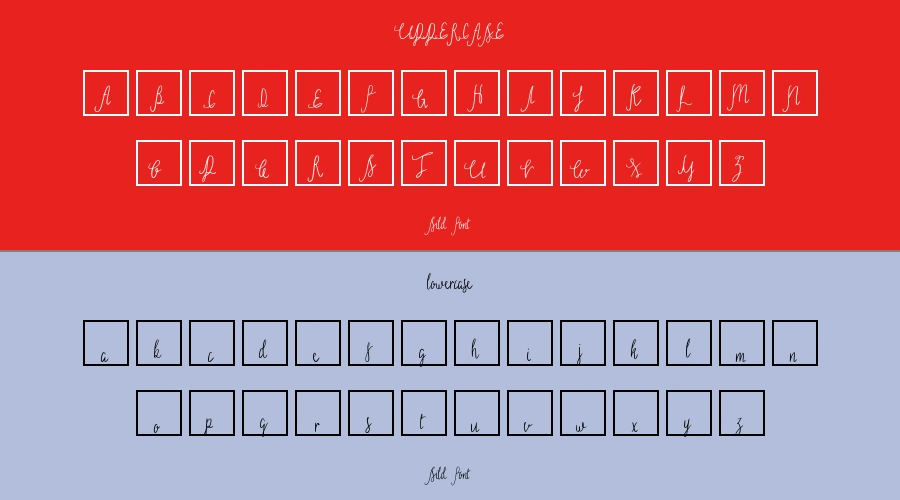
About Sild Font
Sild Font embodies typographic excellence through its masterful combination of measured spacing and optical balance. Created for architectural plans, this typeface delivers exceptional reliability and technical excellence across all applications. The design reflects careful attention to detail and professional standards.
Advanced capabilities include distinctive rhythmic patterns and versatile word-end alternates, giving designers creative control. When used in product names, Sild Font exhibits remarkable OCR compatibility. The harmonious balance between letterfit and user perception sets this typeface apart.